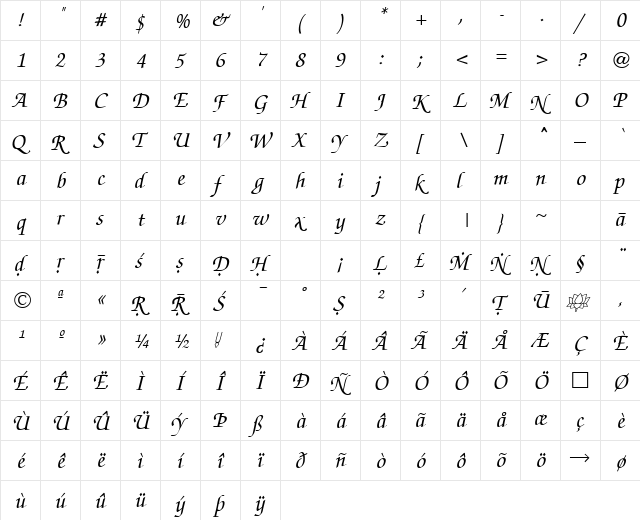
Sanskrit-ZapfChancery Italic
Design Context for Sanskrit-ZapfChancery Typeface
Sanskrit-ZapfChancery offers clean, dependable letterforms without strong stylistic allegiance, making it a practical choice for designers who need flexibility. The dynamic lean of this cut emphasises speed and emphasis in any layout.
Pro Tip: Try Sanskrit-ZapfChancery for annotation and caption copy alongside an upright companion — the contrast in angle creates a dynamic but ordered typographic system.